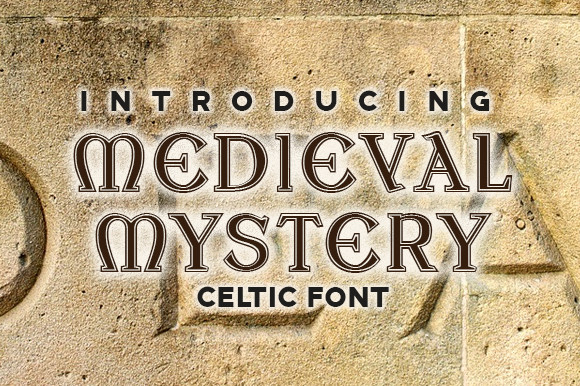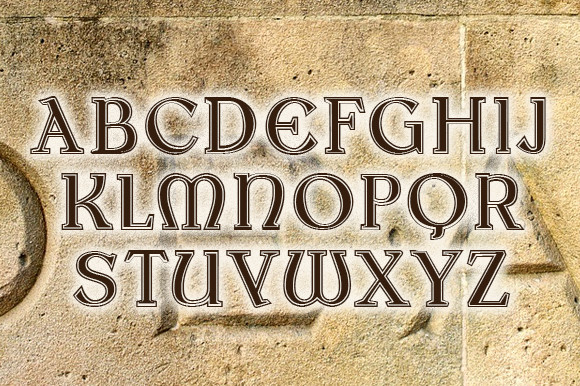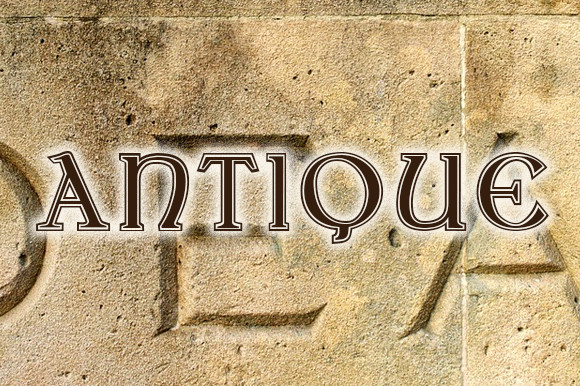
Medieval Mystery Font
About Medieval Mystery Font
Medieval Mystery is a bold and thick lettered blackletter and Celtic font. Add it confidently to your projects, and you will love the results.